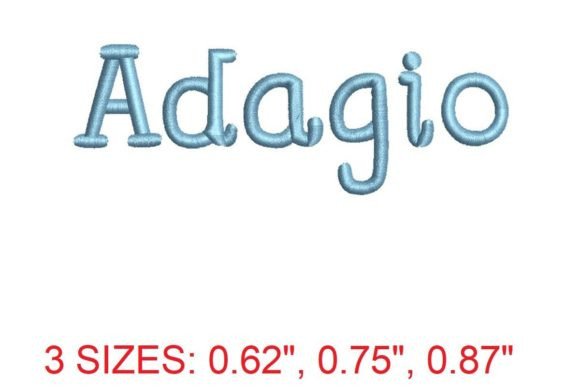
Adagio Font Review for Boutique Apparel
The Adagio Font from Creative Fabrica is a standout embroidery design that brings elegance and sophistication to any project. As an experienced embroidery designer, I was eager to explore how this font would translate on various types of apparel, especially for boutique brands and small shops looking to elevate their handmade products.
First Impressions: Visual Personality and Stitching Mood
From the moment I viewed the Adagio Font, its graceful curves and intricate details caught my eye. The font exudes a timeless charm that feels both classic and modern. It has a soft, feminine aesthetic that leans toward the elegant rather than the bold or playful. This makes it ideal for monograms, logos, and decorative elements that need to feel premium without being overwhelming.
The stitching mood of Adagio Font is delicate yet confident. Its intricate details suggest a high level of craftsmanship, which translates well into machine embroidery designs. Whether used on a simple t-shirt or a more complex hoodie, the font maintains its visual strength without appearing too busy.
Performance Across Apparel Types
For sweatshirt embroidery, Adagio Font offers a refined look that pairs well with neutral tones. On pastel hoodies, it adds a touch of sophistication, while on dark apparel, it stands out with a subtle contrast. When placed on oversized garments, the font retains its clarity and doesn’t get lost in the fabric’s texture.
Sleeve accents and back designs featuring Adagio Font create a polished, professional appearance. On t-shirts, it can be used as a minimalist logo or a more elaborate statement piece. Tote bags benefit from the font’s decorative strength, making it a great choice for lifestyle product photos and printable mockups.
Use Cases for Boutique Merchandise
As an Etsy seller or small shop owner, Adagio Font can be a valuable addition to your custom apparel collection. It works well for boutique merchandise that requires a touch of luxury. Whether you're creating seasonal outfits or everyday wear, the font’s versatility ensures it fits a range of styles and occasions.
For commercial embroidery, Adagio Font offers a consistent look that enhances brand identity. Its visual consistency across different items helps build customer recognition and trust. When used in social media graphics or Etsy listings, it adds a professional flair that appeals to discerning buyers.
Practical Considerations for Embroidery Designers
When working with Adagio Font, it's important to consider factors like stitch density and hoop size. The font’s intricate details may require careful placement to avoid overcrowding. For dense stitch areas, a stabilizer is essential to prevent puckering, especially on stretchy fabrics like fleece or ribbed material.
On dark garments, thread color contrast becomes crucial. Choosing a thread that complements the fabric will ensure the font remains visible without clashing. Testing the design on scrap fabric before production is always a good idea, as it allows you to adjust settings and ensure the final result meets your expectations.
Design Placement and Fabric Compatibility
Small chest placements and curved surfaces can be challenging when using detailed fonts like Adagio. Careful planning and precise hooping are necessary to maintain the font’s integrity. Tiny lettering may require a larger hoop size to ensure accuracy, while areas prone to stretching or wrinkling should be approached with caution.
For handmade products, the font’s decorative strength adds value and distinguishes your work from mass-produced alternatives. As a digital embroidery file, Adagio Font offers flexibility for those who want to create unique, personalized items for their customers.
Impact on Brand Identity and Customer Engagement
Using Adagio Font on your custom apparel can significantly enhance your brand’s visual identity. Its elegant style conveys professionalism and attention to detail, which can increase buyer trust and encourage repeat purchases. Consistent use of the font across your product line creates a cohesive look that strengthens brand recognition.
Customer engagement also benefits from the font’s appeal. A well-designed embroidered item with Adagio Font can stand out in a crowded market, making it more likely to be noticed and purchased. Whether you’re selling online or in a physical store, the font’s visual impact contributes to a more appealing finished product.
Final Thoughts for Embroidery Shops and Small Brands
Adagio Font is a versatile and stylish embroidery design that can elevate a wide range of apparel projects. Its intricate details and elegant form make it suitable for both casual and formal wear, offering something for every type of boutique brand or handmade business.